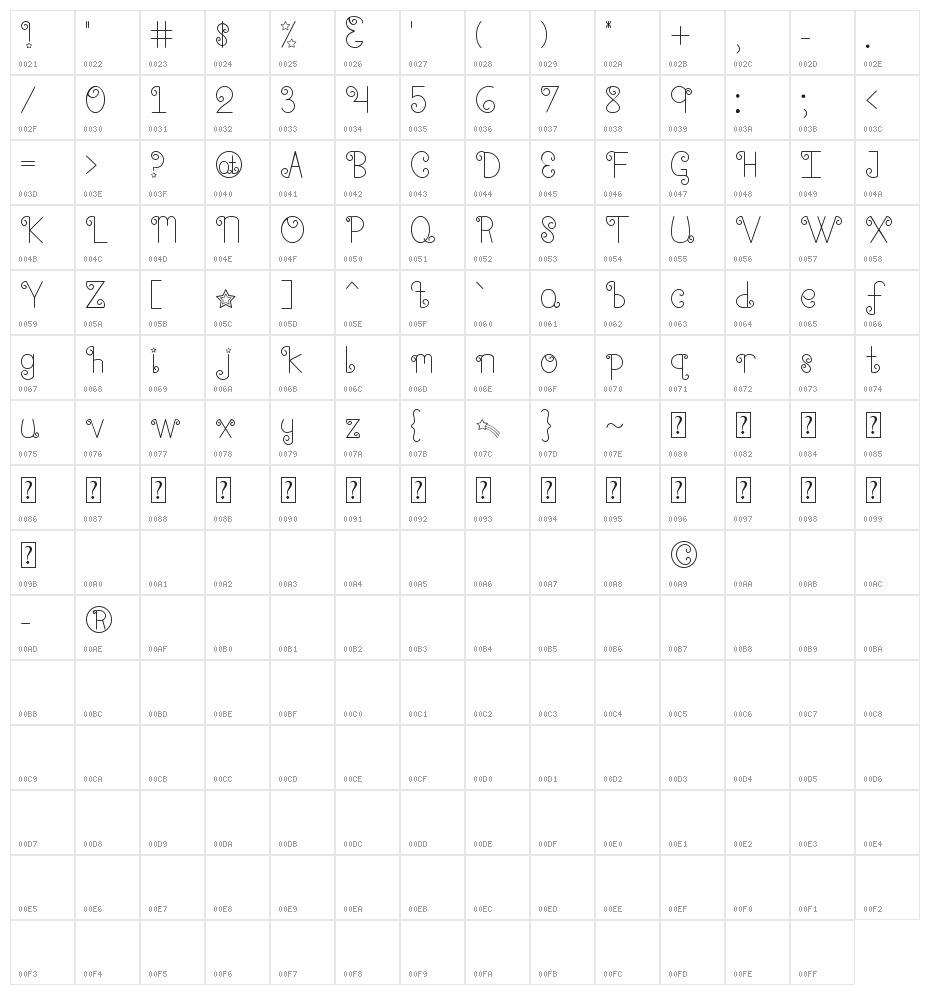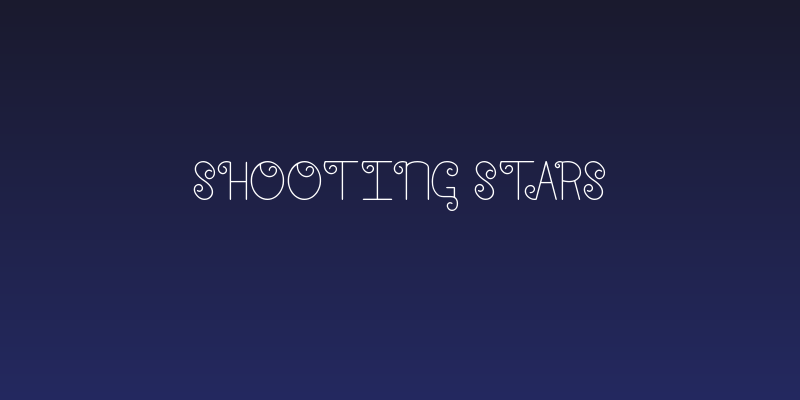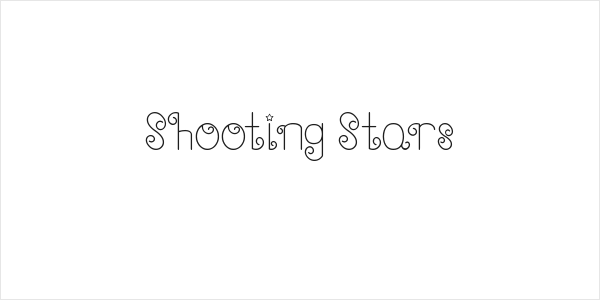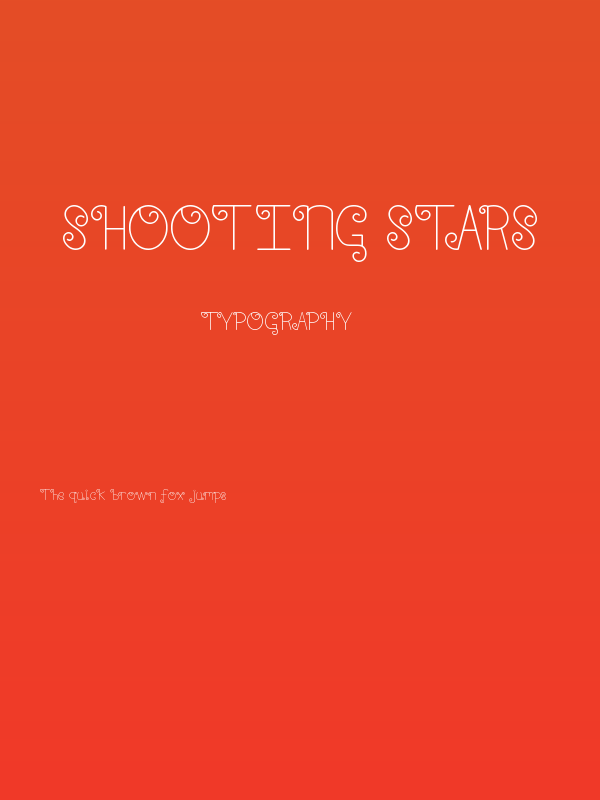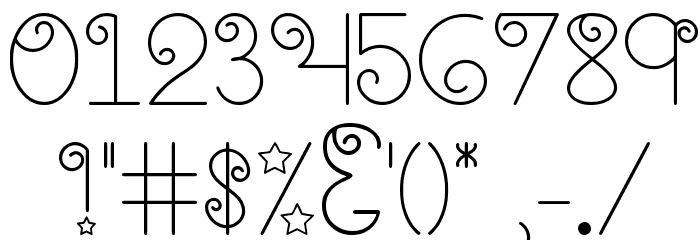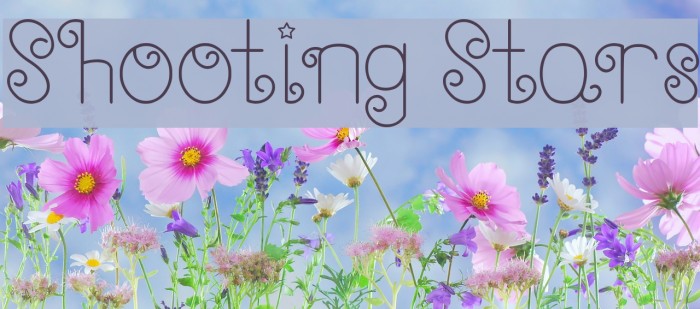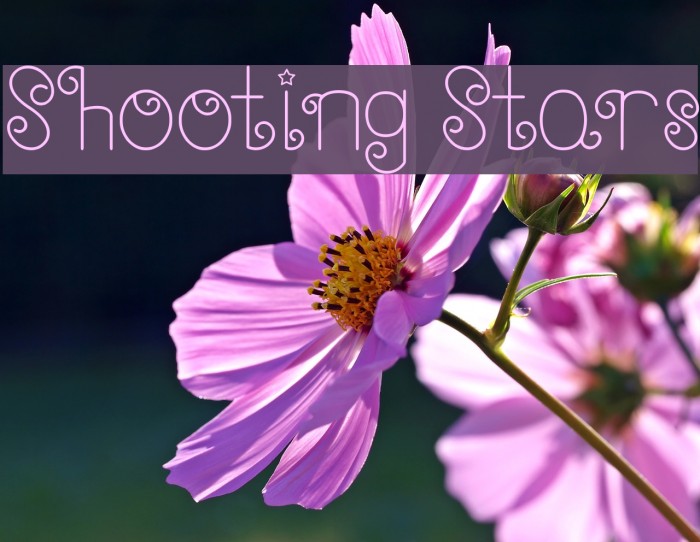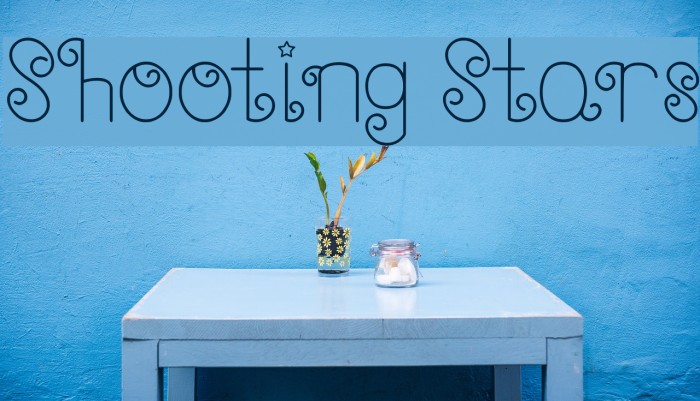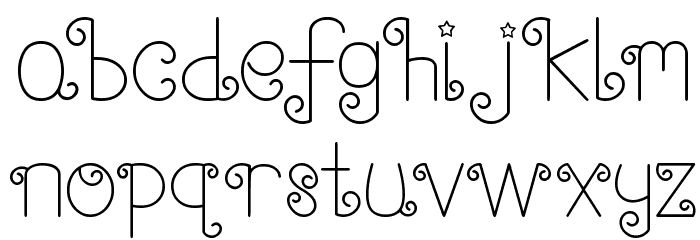
Shooting Stars Font
Shooting Stars Description
This whimsical and decorative font features playful curls and swirls, giving it a unique and enchanting appearance. Each letter is adorned with star-like embellishments, adding a touch of magic and fantasy. The characters are thin and delicate, with a consistent stroke width that maintains a light and airy feel. The font includes both uppercase and lowercase letters, as well as numbers and a variety of special characters, all designed with the same playful style. The overall design is cohesive and imaginative, making it ideal for creative and fun projects.
| Proposed Projects | Ideal for children's book covers, party invitations, fantasy-themed posters, and playful branding. |